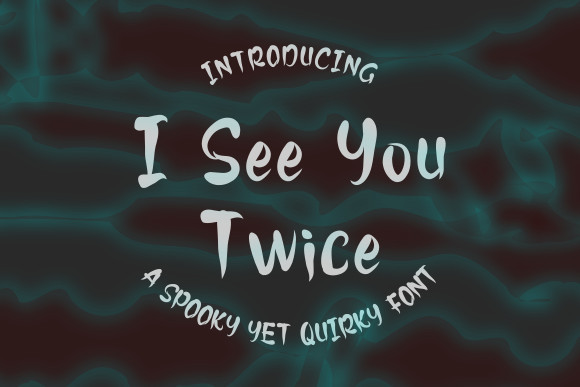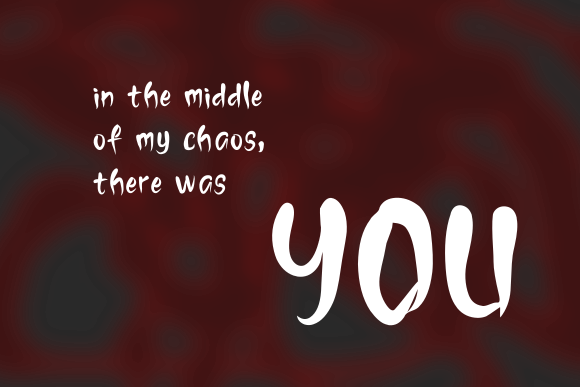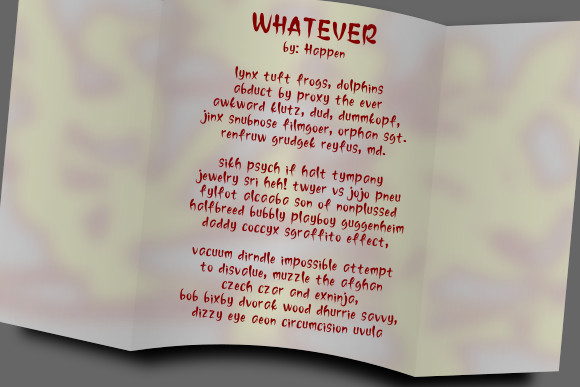
I See You Twice Font
I See You Twice embodies fun, quirkiness and authenticity. It is the perfect fit for all of your logos, branding, social media, and crafty DIY projects.